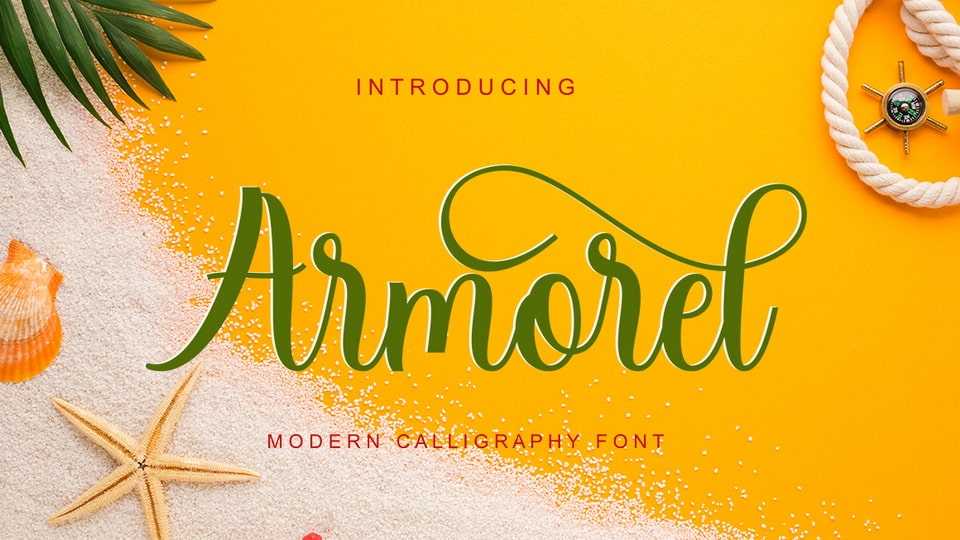
Download Armorel Script font, a romantic, bold, elegant and fun vintage script. It can be used for various purposes such as logos, wedding invitation, t-shirt, letterhead, signage, news, posters, badges, and more.